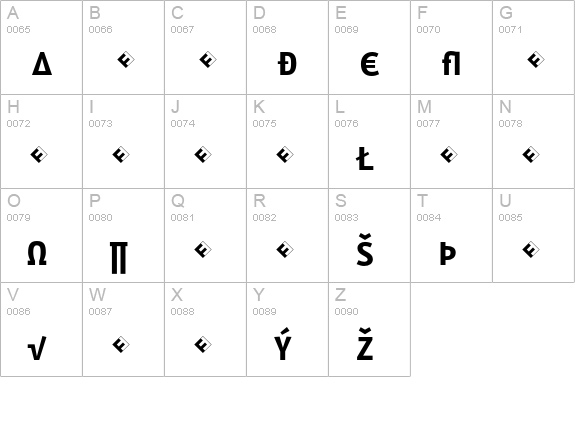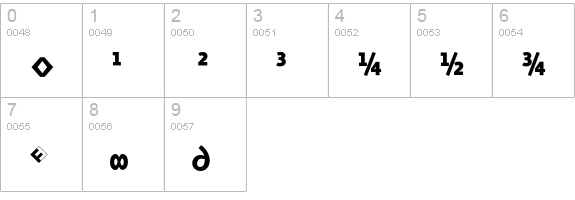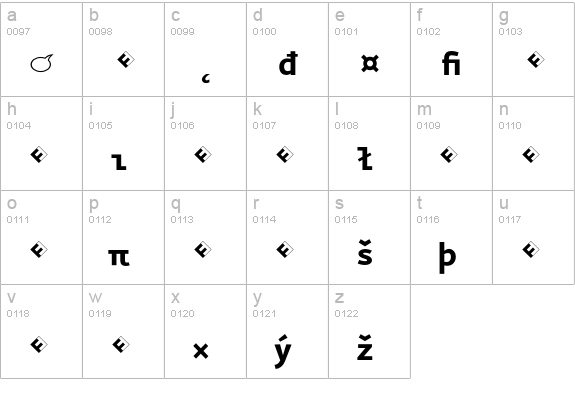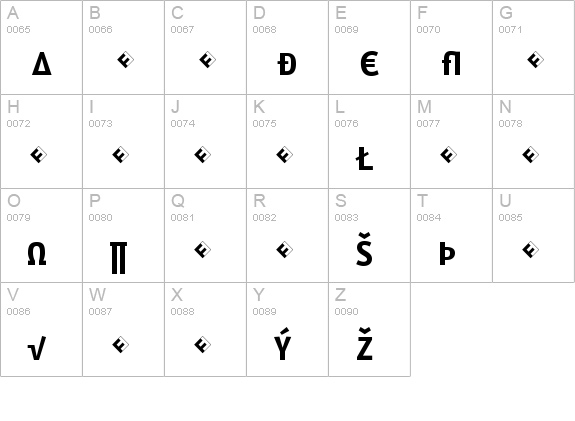
Eureka Mono Exp Bold is a strong, high-contrast variant in the Eureka typeface family \xE2\x80\x94 well suited to headlines, attention-grabbing titles, and strong calls-to-action.
Sure, here is a long description for the Eureka Mono Exp Bold font: Eureka Mono Exp Bold is a modern and versatile typeface that exudes confidence and strength. Its bold and striking design makes it perfect for headlines, titles, and other display purposes. The geometric shapes and clean lines give this font a contemporary and sleek look that will make your designs stand out. The best part about Eureka Mono Exp Bold font is that it is completely free to download. You can easily access this font at FontsMarket.com, where you can explore a wide range of free fonts to enhance your projects. Whether you're working on a website, poster, logo, or any other design project, Eureka Mono Exp Bold font is a great choice to add a touch of modernity and sophistication. With its unique style and easy readability, Eureka Mono Exp Bold font is sure to make a statement in your designs. Download it for free today and elevate your typography game with this eye-catching and impactful typeface.